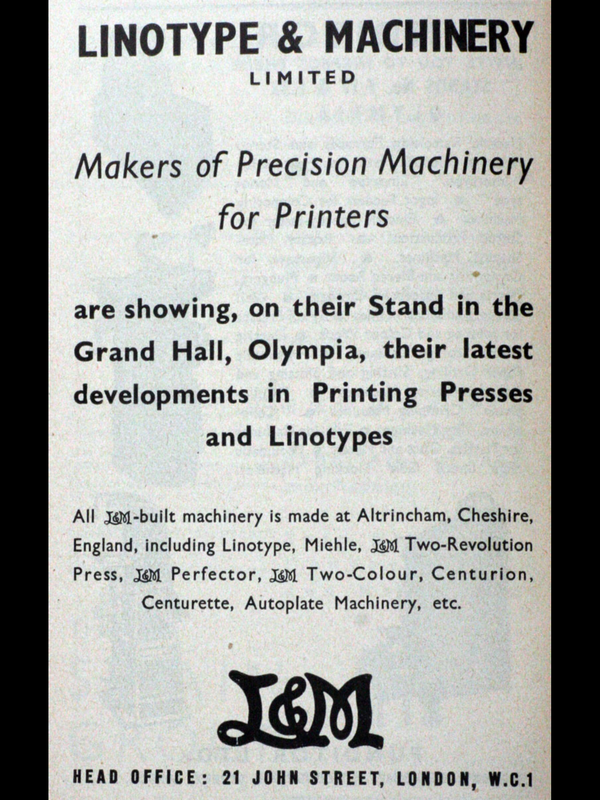
Where Did This L&M Sign Come From?
Just bought a L&M (Linotype and Machinery) alloy sign.
I've never seen one on a machine and was wondering if it was used for advertising.
It looks to me like it came off a machine. Too plain (and no background) for it to be a general advert.
How large is it? Perhaps it hung above a door at a branch office?
It turned up today and is 19cm wide and 9cm tall. Dull alloy finish with two screw holes !
Keep in mind Linotype and Machinery, also manufactured printing presses. It could very well come from a printing press. It certainly did not come from any Linotype that I've seen.
It looks to me like it could have come from some foundry equipment, perhaps a stereo plate making machine.
Maybe one of these:
A bit flash for linotype more likely say, London and Manchester Insurance, L & M cigarette and several others.
Fairly sure it is Linotype. A few family members worked in Altrincham and my mum has some old Linotype news magazines which featured this logo. Plus found this online.
Probably came off a Miehle press. Interestingly, the L&M logotype was made in matrix form and used in some of their house publications (as in this ad) when such things were in vogue.
As regards the "Linotype and Gill Sans" comment, the ad was obviously not set up by L&M, who would have used their own typefaces. Metro perhaps?